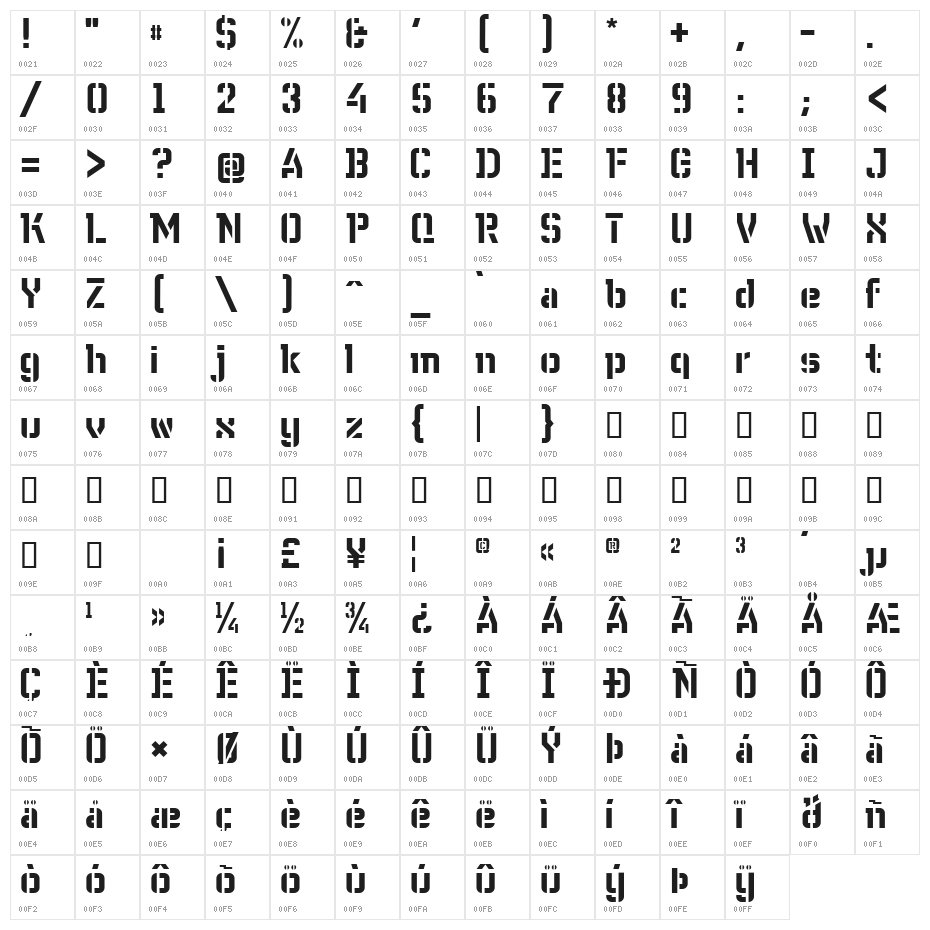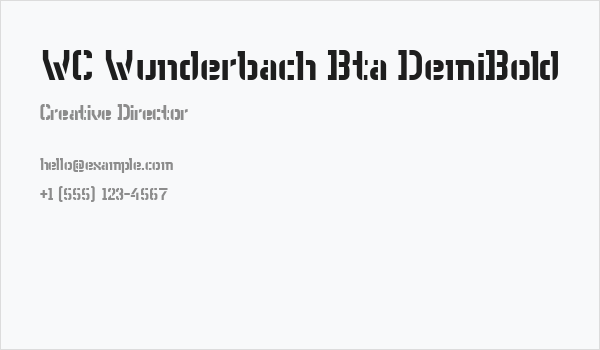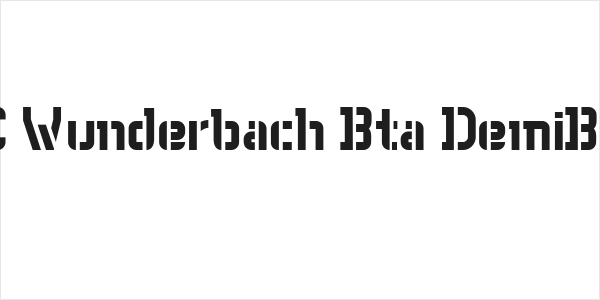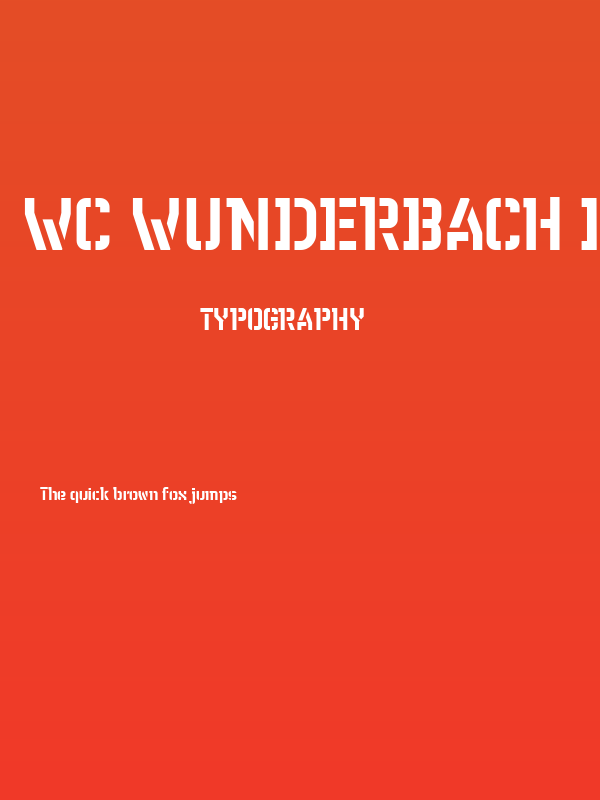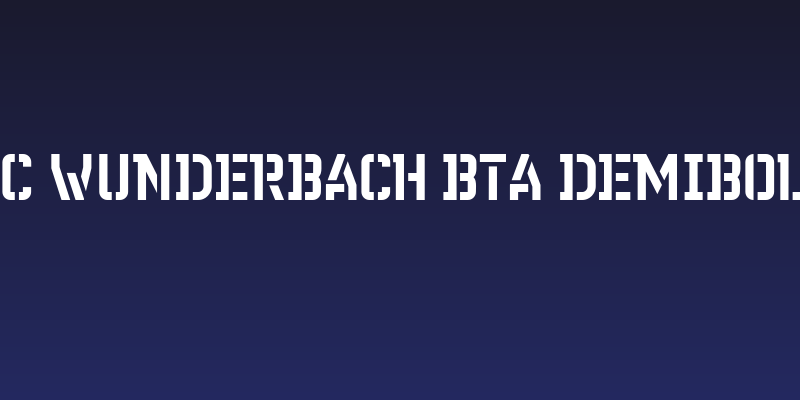
WC Wunderbach Bta DemiBold Font
WC Wunderbach Bta DemiBold Description
This font features a bold and striking design with a modern, geometric aesthetic. The characters are constructed with a stencil-like appearance, incorporating sharp angles and clean lines. The uppercase and lowercase letters maintain a consistent weight, contributing to a cohesive look. The numerals and special characters follow the same design principles, ensuring uniformity across all glyphs. This font's unique style makes it highly suitable for attention-grabbing designs.
| Proposed Projects | Ideal for branding, posters, headlines, and any project requiring a bold, modern aesthetic. |